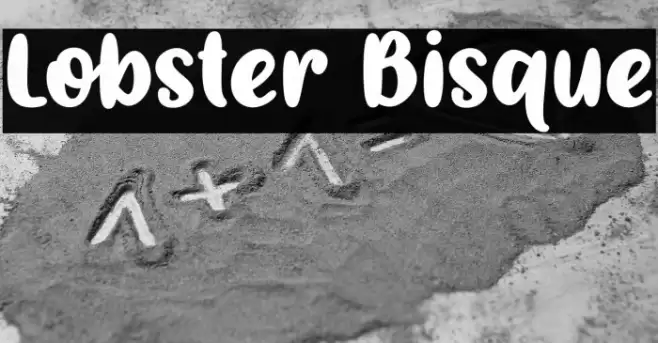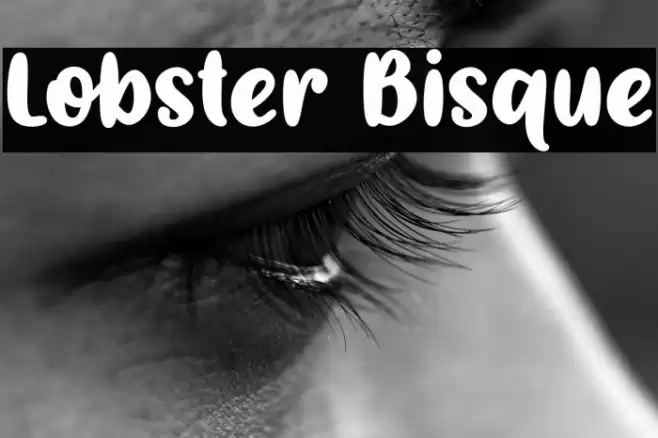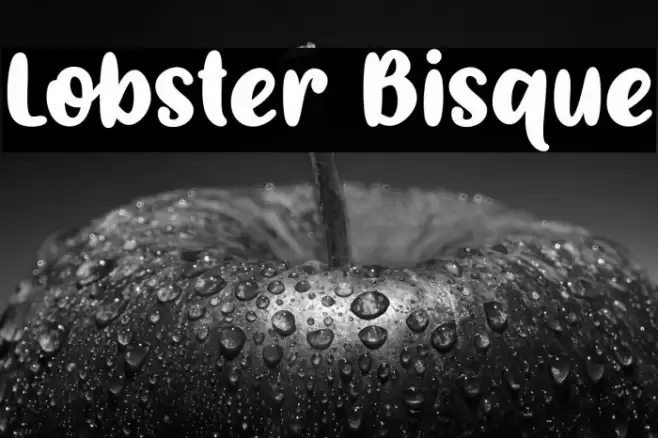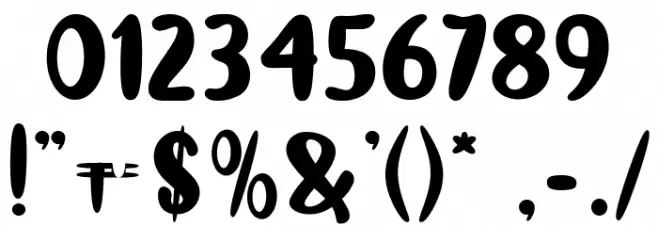
Lobster Bisque Font
Lobster Bisque Description
This font features a bold, flowing script style that exudes a sense of casual elegance and playfulness. The characters are interconnected with smooth, rounded edges, creating a cohesive and harmonious look. The uppercase letters are slightly more structured, while the lowercase letters maintain a consistent, fluid motion. The numbers and special characters follow the same stylistic approach, ensuring uniformity across all elements. This font is ideal for projects that require a touch of personality and charm, such as invitations, branding, and creative headlines.
A bold, flowing script font with a playful and elegant style from Regular fonts.
- Proposed Projects: Ideal for invitations, branding, creative headlines, and any project needing a personal touch.
- Use Case: Headlines, Logos, Invitations